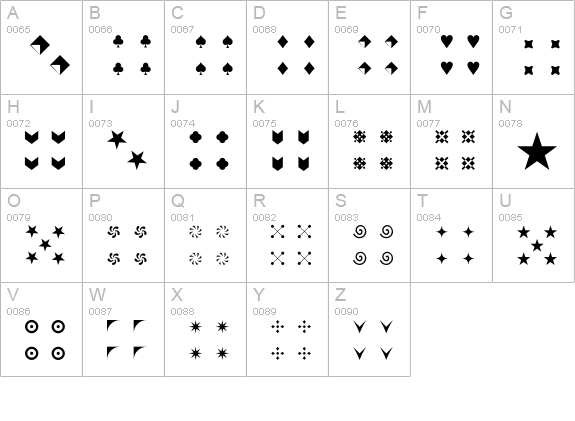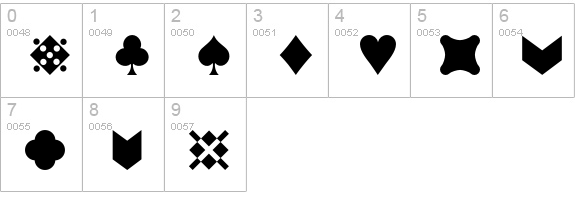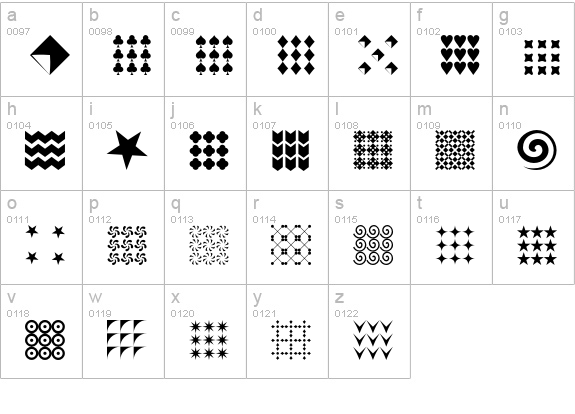
AltemusChecksTwo Font Details
AltemusChecksTwo is a versatile and charming font that exudes elegance and sophistication. With its unique blend of classic and modern elements, this font is perfect for a wide range of design projects, from invitations to branding to social media graphics. One of the most appealing aspects of AltemusChecksTwo is that it is available for free download at FontsMarket.com. This means that you can easily access this stunning font and incorporate it into your projects without any cost. Whether you're a professional designer or a hobbyist, AltemusChecksTwo offers a high-quality and stylish option for your typography needs. With its sleek lines and timeless appeal, AltemusChecksTwo is sure to make a statement in any design. Download this font today and add a touch of elegance to your next project!